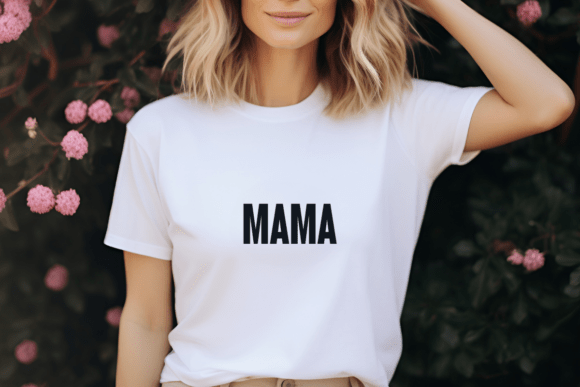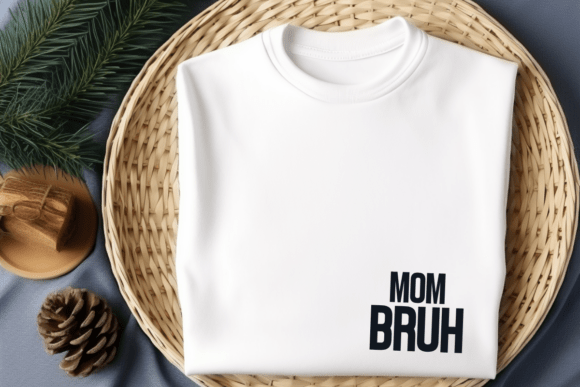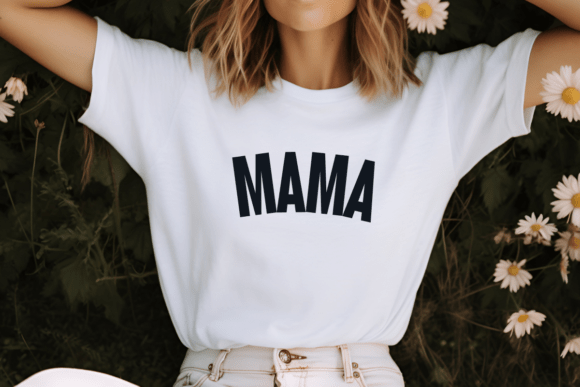
Introduction to Shemom Font Font
Shemom a bold and powerful condensed sans serif font designed for creators who want to make a strong statement.
With its thick, tall letterforms and clean geometric construction, this font is perfect for Print On Demand projects like t-shirts, hoodies, mugs, and tote bags, as well as for motherhood-themed branding, parenting blogs, and social media quotes Its solid and impactful style makes it ideal for minimalist posters, modern logos, and cinematic titles that require a bold yet sophisticated touch.
Why Choose Shemom Font Font?